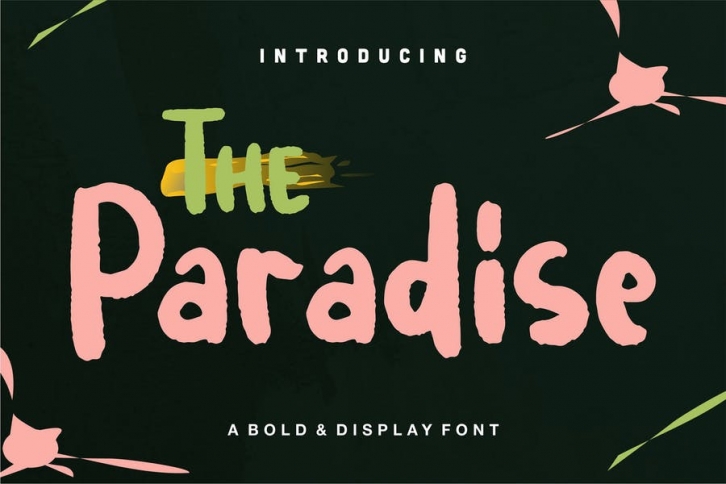
The Paradise | A Bold & Display Font Download
The Paradise | A Bold & Display Font with a calligraphy style, So beautiful on invitation like greeting cards, branding materials, business cards, quotes, posters, and more!
• Tons of glyphs
• Alternates and Ligatures
• Punctional